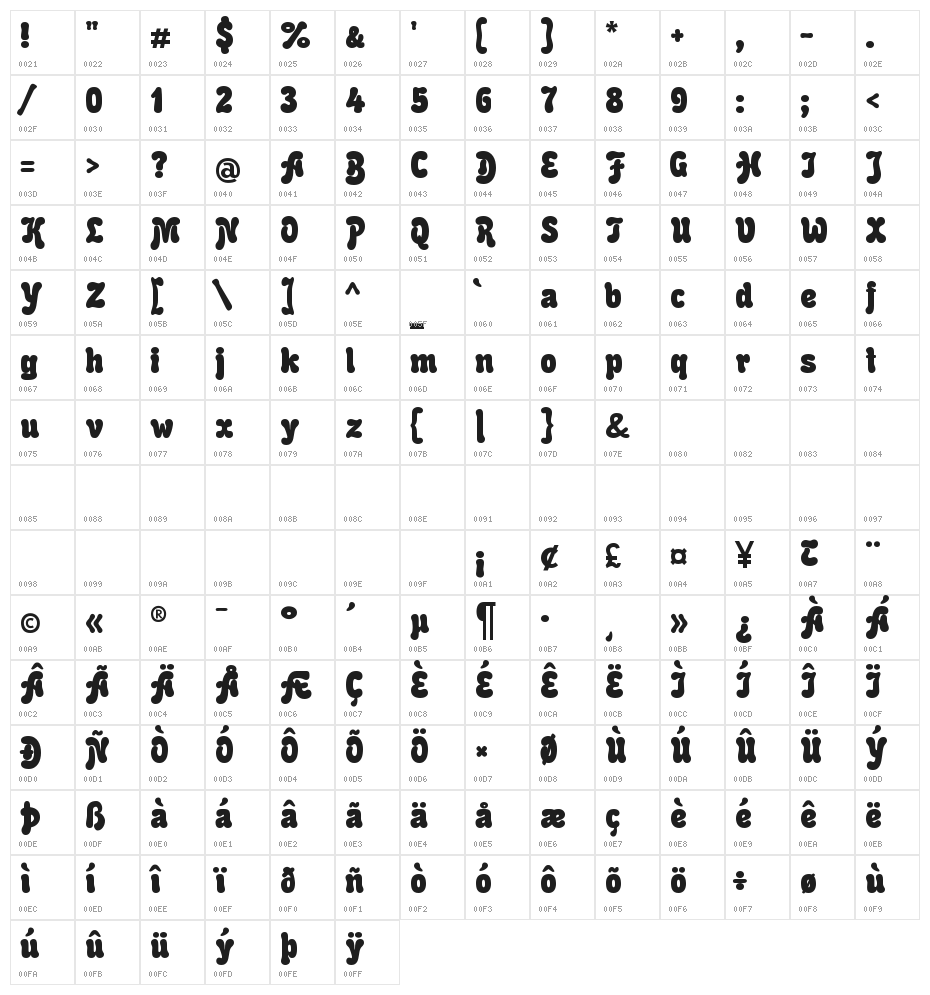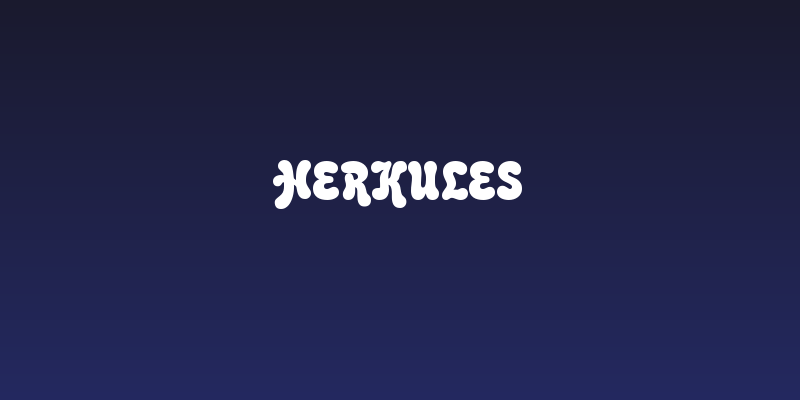
Herkules Font
Herkules Description
This font features bold, rounded characters with a playful and whimsical style. The letters are thick and have a bubbly appearance, making them stand out with a strong visual presence. The uppercase and lowercase letters maintain a consistent weight, contributing to a cohesive look. The numbers and special characters follow the same design principles, ensuring uniformity across all elements. The font's unique style is characterized by its exaggerated curves and soft edges, giving it a friendly and approachable feel. This makes it particularly suitable for creative and fun projects.
| Proposed Projects | Ideal for children's books, playful branding, posters, and event invitations. |